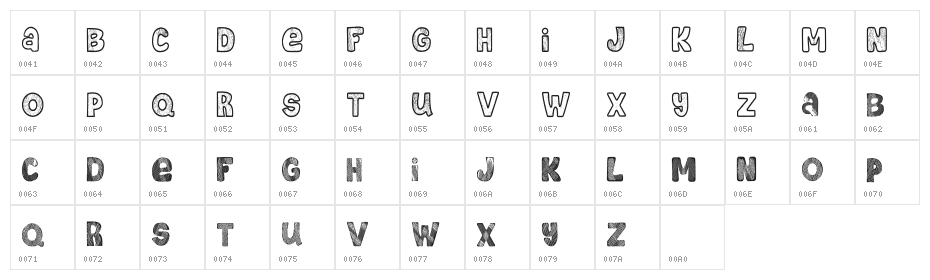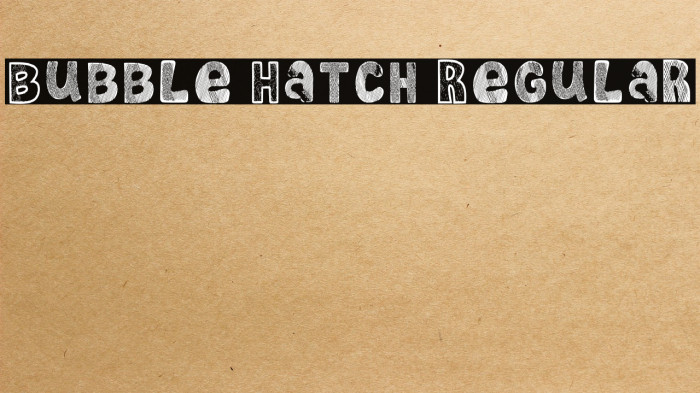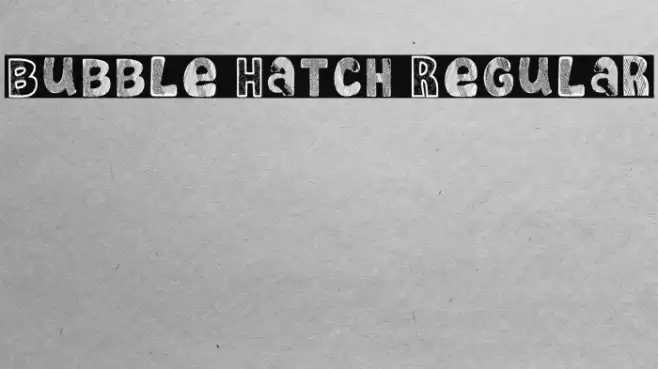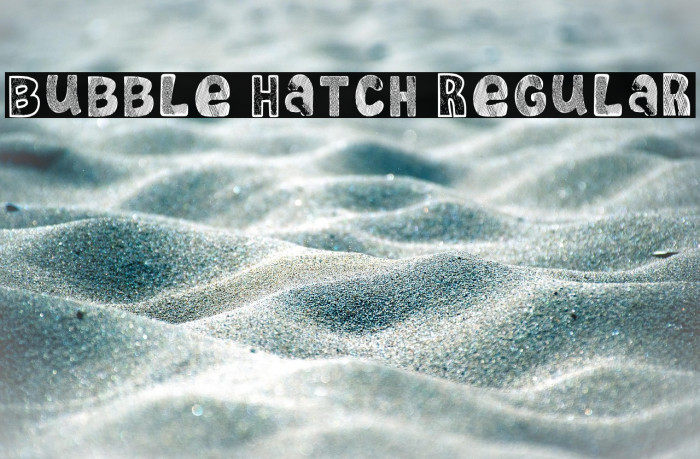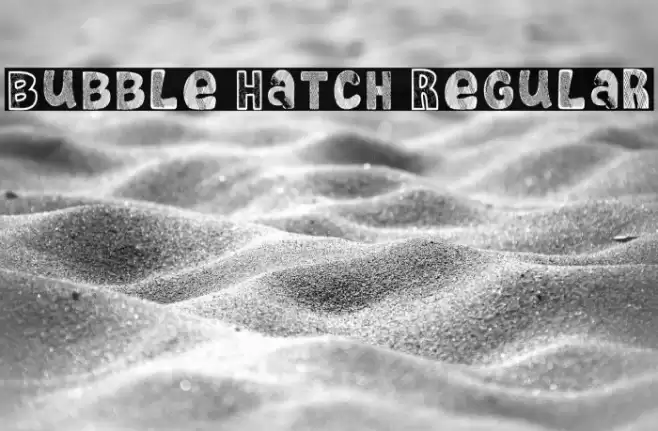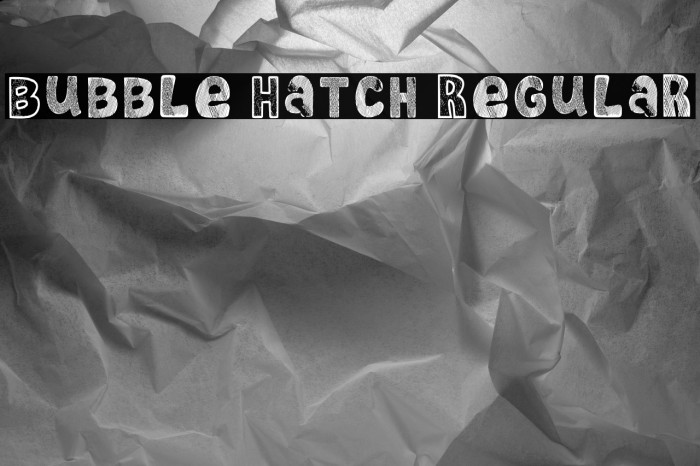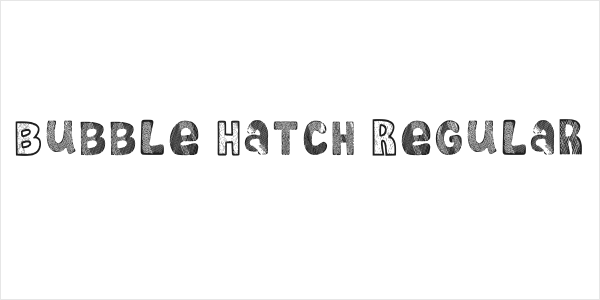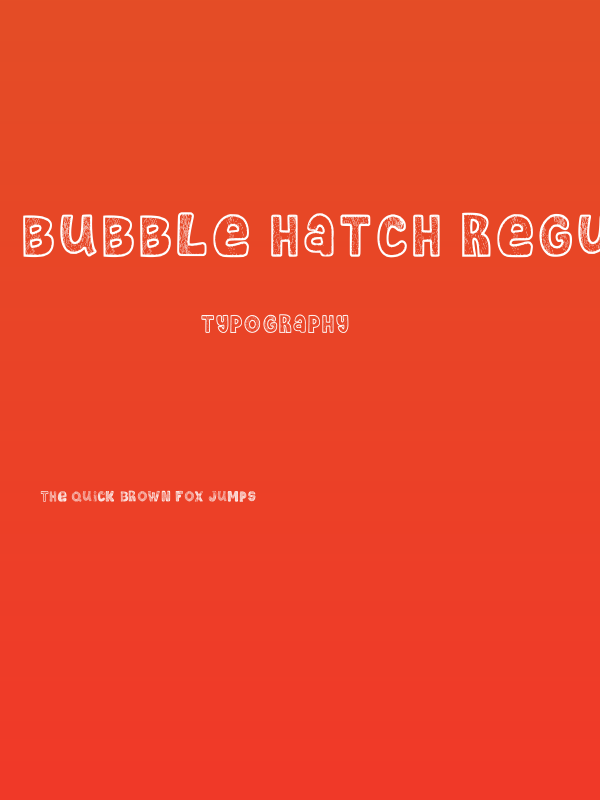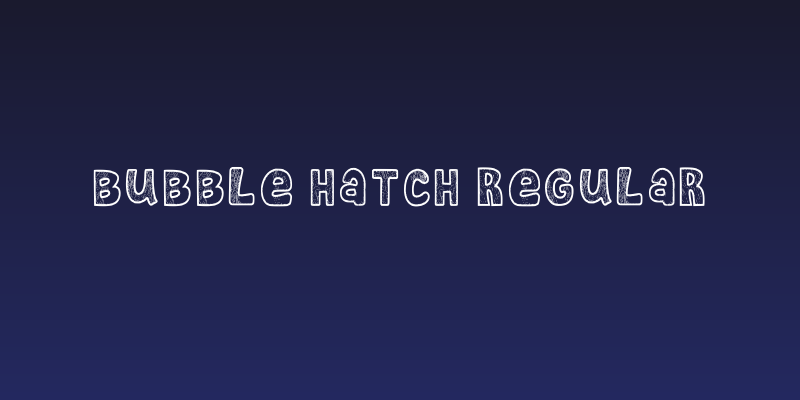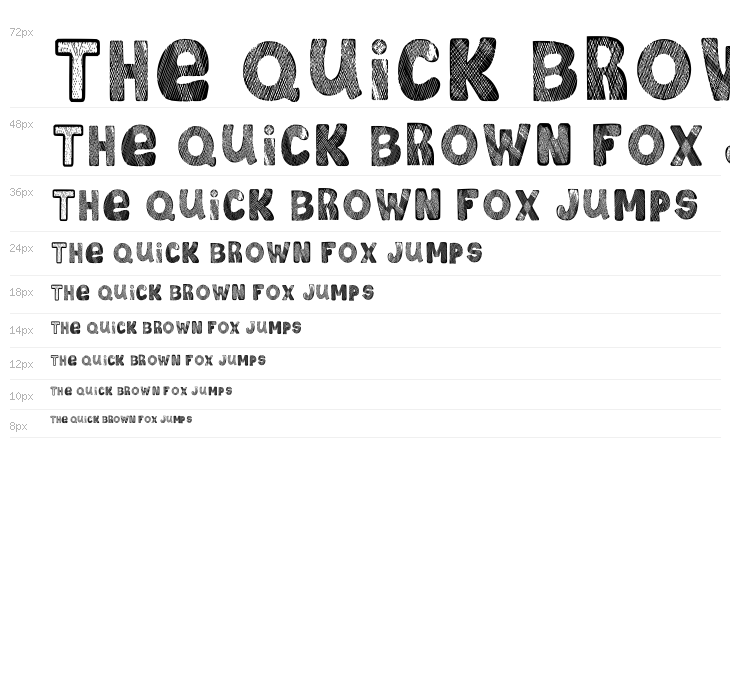
Bubble Hatch Regular Font
Bubble Hatch Regular Description
This playful and whimsical font features a unique bubble-like appearance with a hatched texture inside each character. The letters are rounded and bold, giving them a friendly and approachable feel. The hatching adds an artistic touch, making the font stand out with a textured, hand-drawn look. It's perfect for projects that require a fun and creative vibe, such as children's books, playful branding, or artistic posters. The font maintains consistency across uppercase and lowercase letters, with a uniform style that ensures readability while adding a decorative flair.
| Proposed Projects | Ideal for children's books, playful branding, artistic posters, and creative designs. |